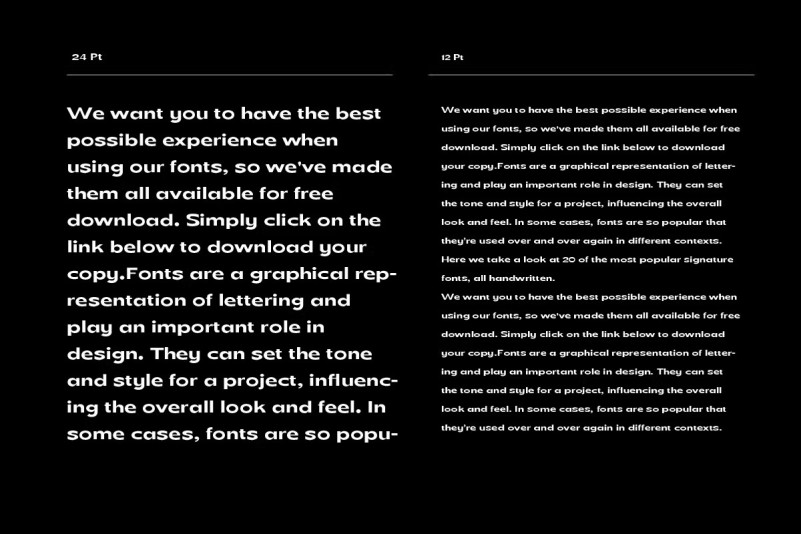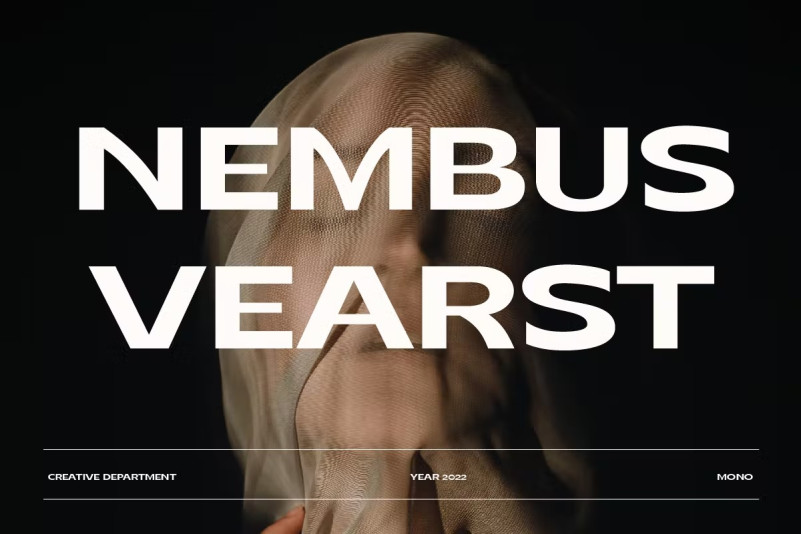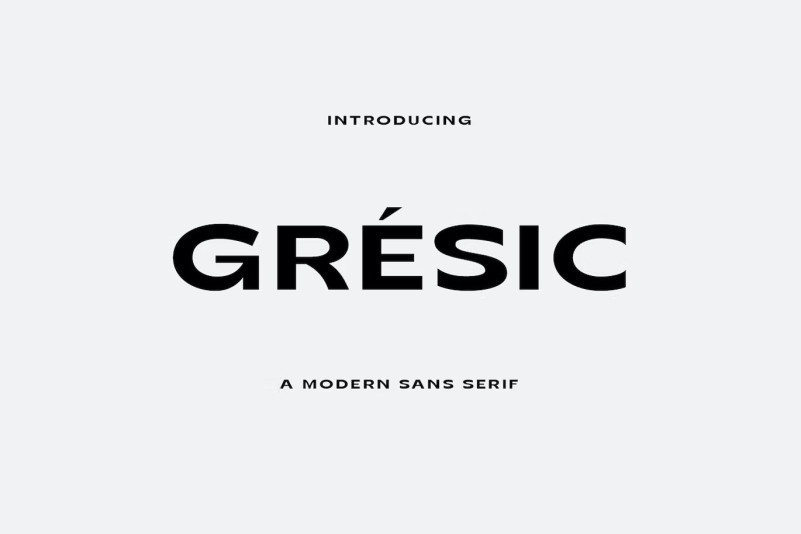
Gresic modern sans serif font
Gresic is a modern sans serif font that is very bold and contrasty. A font of this style is sought across the planet for modern design needs such as Logo design, app design, websites, social media and more.
Why not try Gresic Modern Font today? It comes in uppercase, lowercase, punctuation, and numbers; you don’t have to worry about anything else.